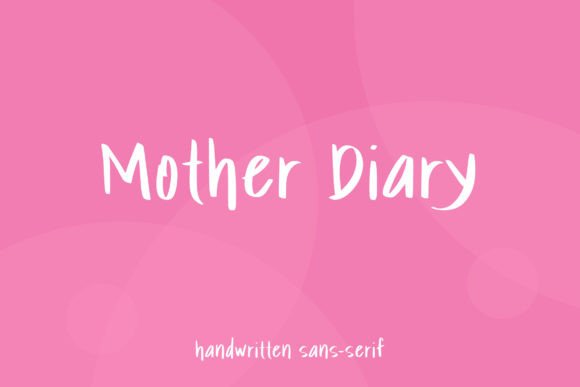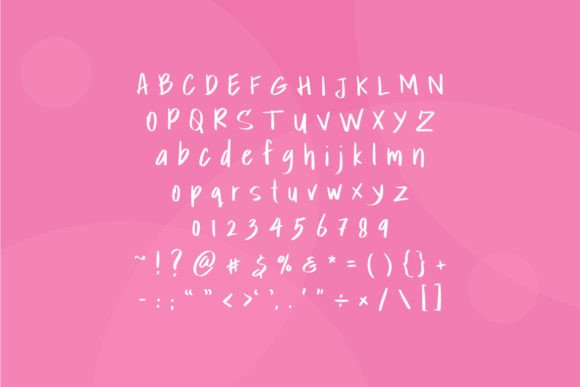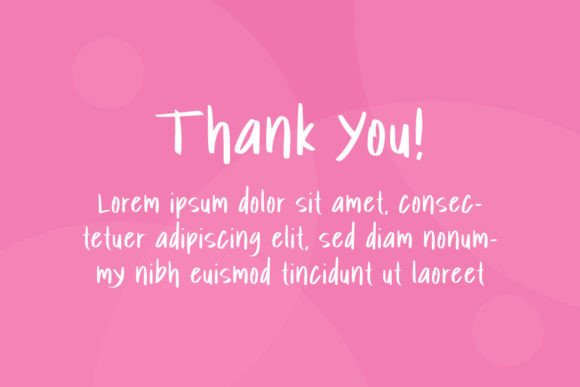
Mother Diary Font
About Mother Diary Font
**Mother Diary**: *Where Cuteness Meets Craftiness*
Mother Diary isn’t just a font; it’s a delightful blend of cuteness and craftiness, meticulously designed to become a versatile asset for your creative projects. With its beautifully balanced characters, this handwritten font effortlessly adds a touch of charm and creativity to your designs, making it a perfect choice for various crafty ideas.
What sets Mother Diary apart is its remarkable ability to seamlessly combine cuteness with craftsmanship. The font’s carefully designed characters exude an air of grace and authenticity, making it an ideal choice for projects that require a touch of artistry and creativity. Mother Diary is the font that can effortlessly enhance your crafty creations, ensuring they stand out with a delightful sense of style and charm.
Mother Diary strikes the perfect balance between a fresh aesthetic and a friendly demeanor, making it a versatile and heartwarming choice for projects that aim to engage and delight.
In crafting and DIY projects, Mother Diary adds a layer of personality and creativity, making them even more enjoyable and unique. For digital design, presentations, or any other creative endeavors, the font’s friendly appeal enhances user engagement and adds a touch of whimsy. Whether you’re working on greeting cards, branding materials, or any other crafty visual content, Mother Diary brings an air of delightful cuteness and craftiness to your projects.
One of Mother Diary’s most remarkable qualities is its adaptability. It can transition seamlessly from a casual and relaxed tone to a more lively and spirited one, making it suitable for a wide range of creative applications. Its ability to evoke both cuteness and craftsmanship ensures that it remains a cherished choice for designers and creators across diverse industries.
In summary, Mother Diary is more than just a font; it’s a design asset that masterfully combines cuteness with craftiness. Its unique blend of beautifully balanced characters and creative charm positions it as an indispensable tool for anyone seeking to infuse their crafty ideas with a touch of style and charm. Embrace the cuteness and craftiness of Mother Diary, and watch your projects come to life with joy and artistic flair, making it the perfect choice for any crafty endeavor you have in mind!